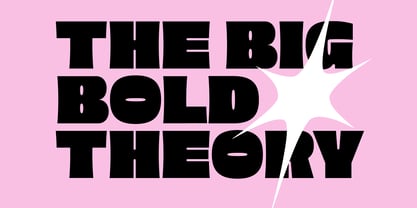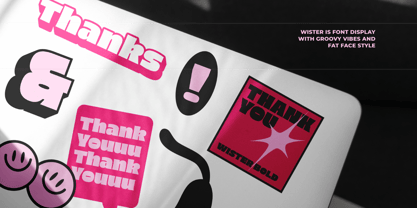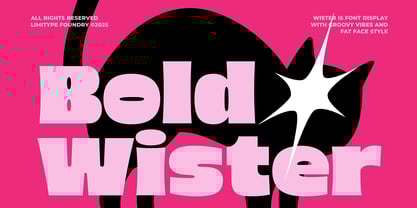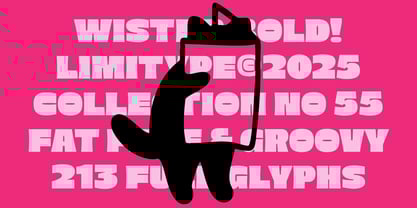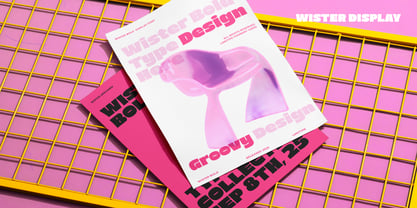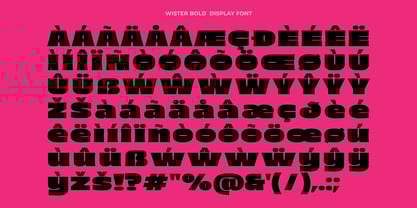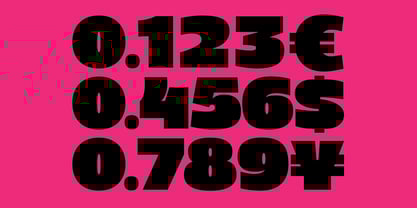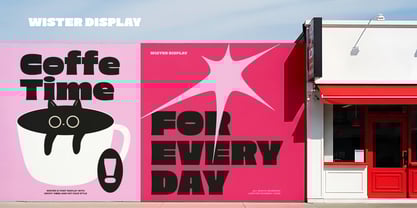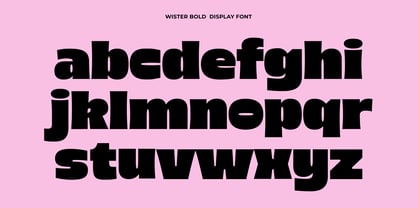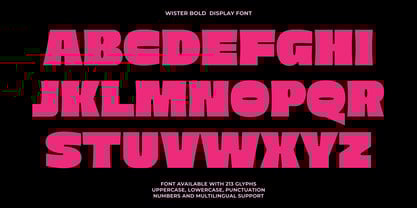
Wister
von limitype
Die Schriftfamilie Wister wurde von Muhammad Muammar, Furqan Sudirman entworfen und von limitype veröffentlicht. Wister enthält 1 Stile.
Wister is a groovy bold display font that bursts with energy and a unique retro flair. Its big, blocky shapes paired with smooth, dynamic curves give it a funky, playful, and expressive personality. With a mix of nostalgic charm and modern spirit, Wister is perfect for posters, titles, and any design that needs to stand out and grab attention.
Designer: Muhammad Muammar, Furqan Sudirman
Herausgeber: limitype
Foundry: limitype
Eigentümer des Designs: limitype